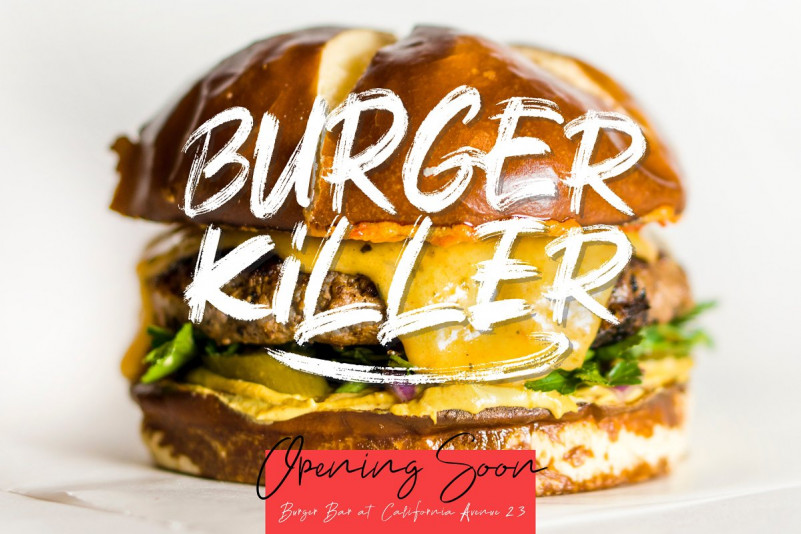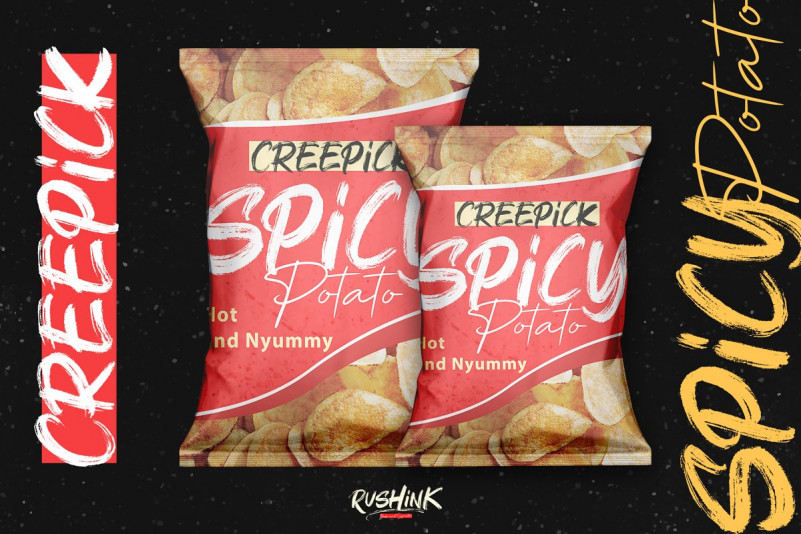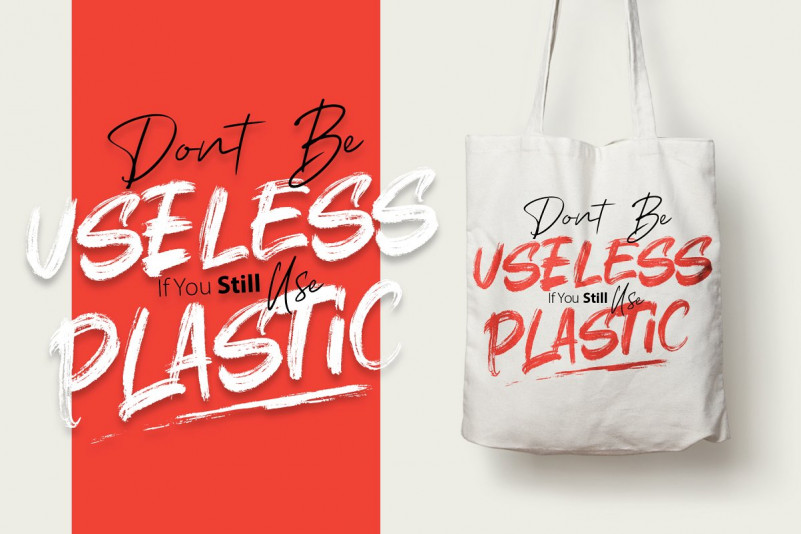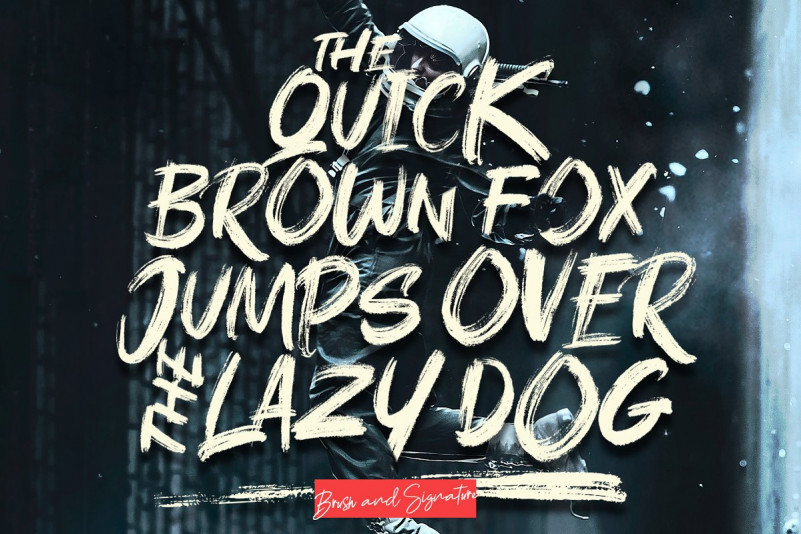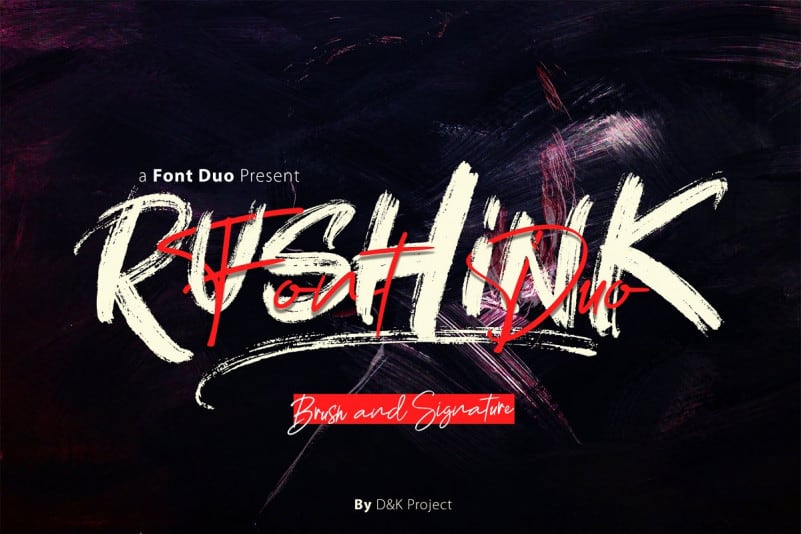
Rushink Brush Font
Rushink Brush – Demo Font
Rushink Font a fresh handwritten font brush, elegant and vintage feel character set. This is brush script font with hand lettering style. This font looks cool in any design! It’s an created by D&K_project. It’s a Brush and signature duo font, coupled with a complete brush and signature font for your font collection. A strong touch on the brush and charming handwriting on the signature is perfect for combining with your design project.
It’s a very powerful font with a realistic brush touch that is suitable for design covers, clothing, packaging and more.